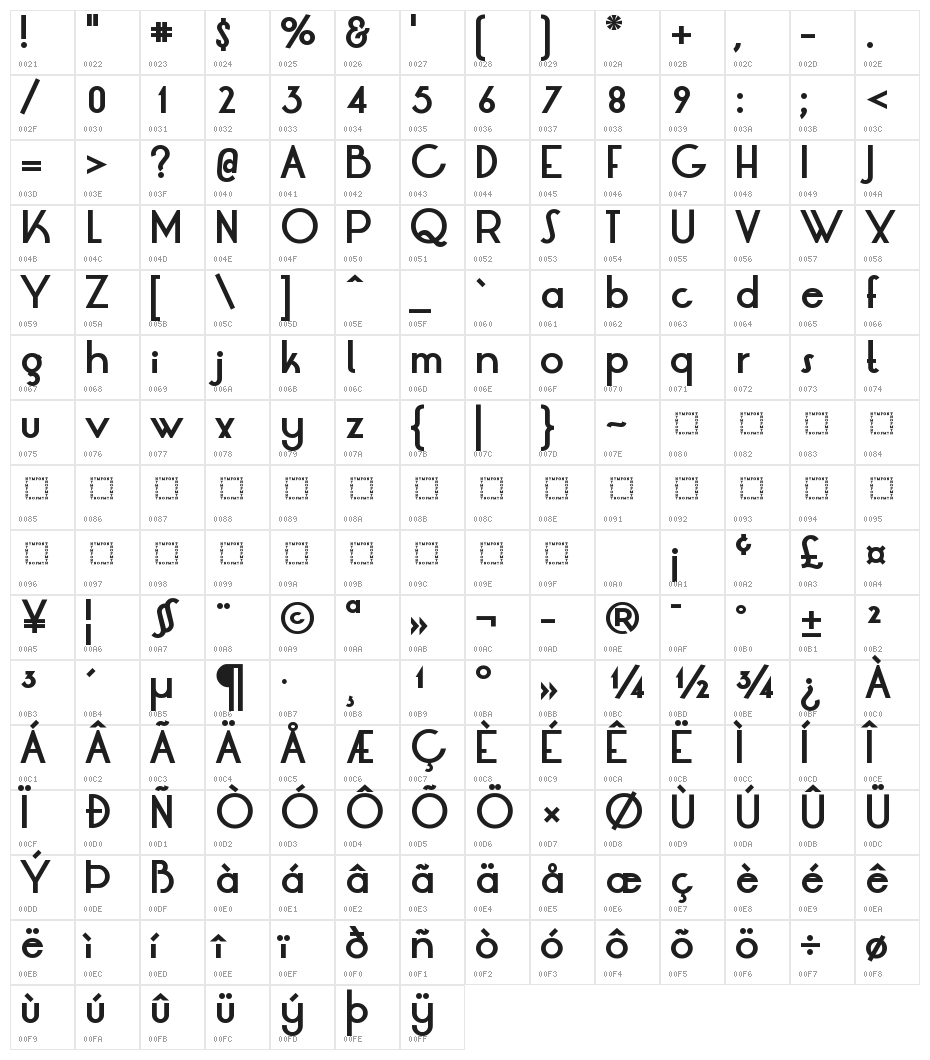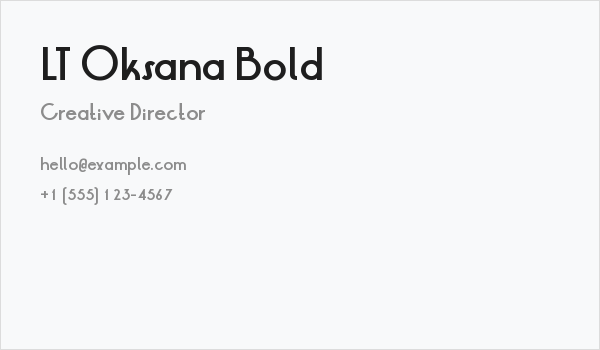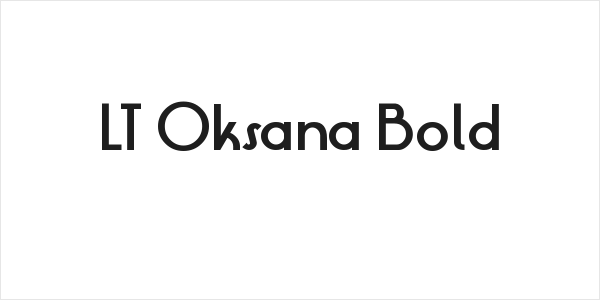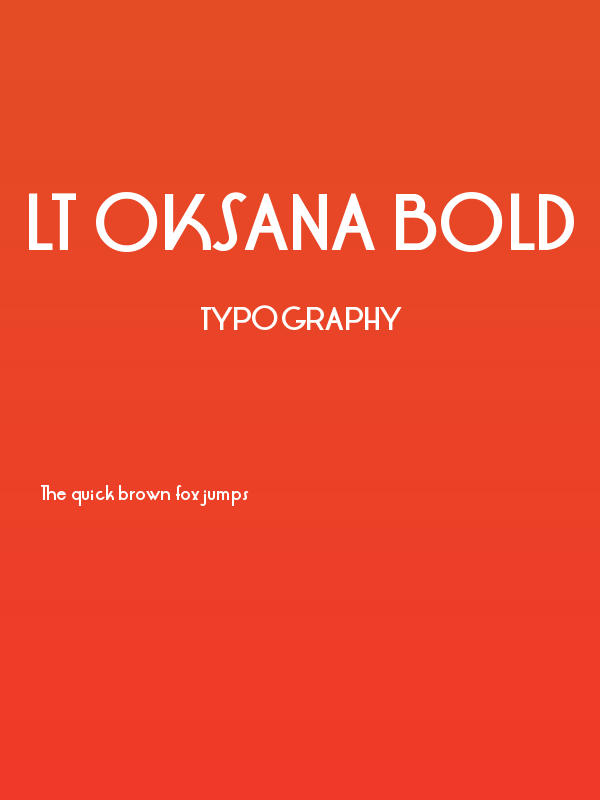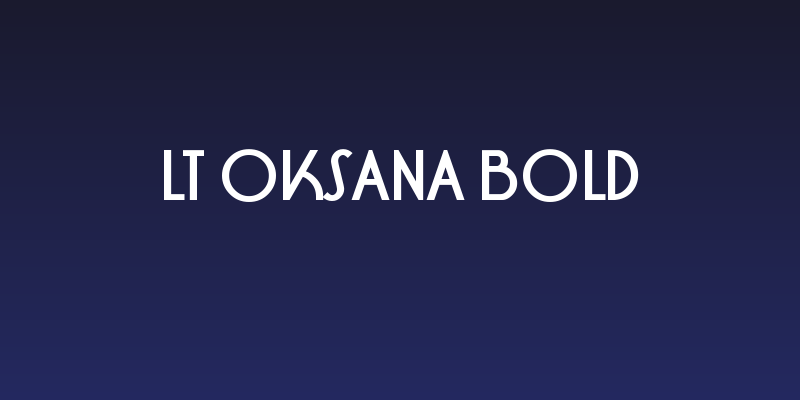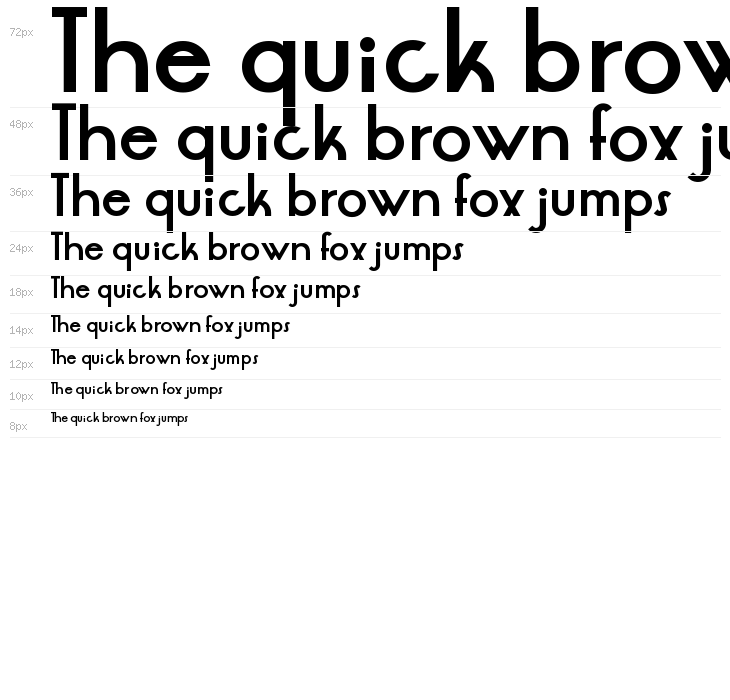
LT Oksana Bold Font
✎ Art Deco
LT Oksana Bold Description
This font features a bold and striking design, characterized by its geometric and clean lines. The uppercase letters are tall and commanding, with a slight art deco influence visible in the angular cuts and curves. The lowercase letters maintain a consistent style, offering a harmonious blend of modernity and classic elegance. The numerals are distinct and easy to read, complementing the overall aesthetic. Special characters are crafted with the same attention to detail, ensuring versatility across various applications.
| Proposed Projects | Ideal for branding, posters, headlines, and any design project requiring a bold, modern touch. |